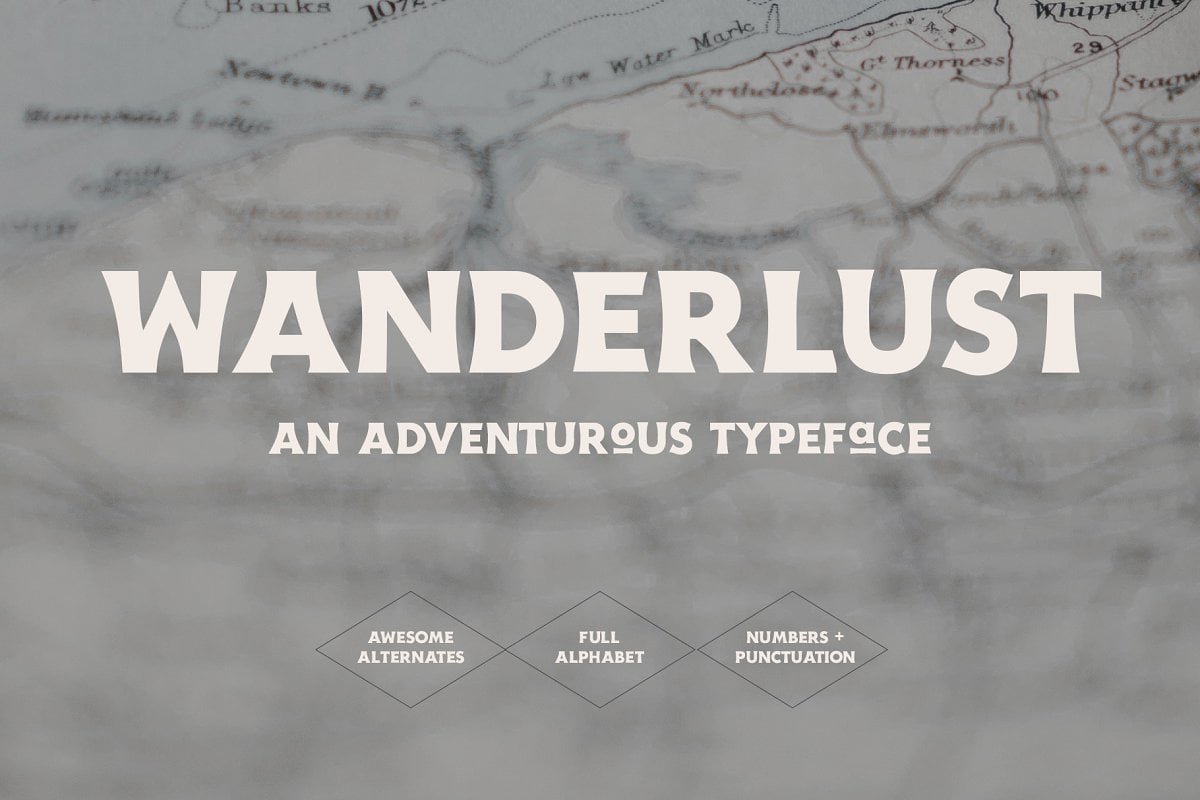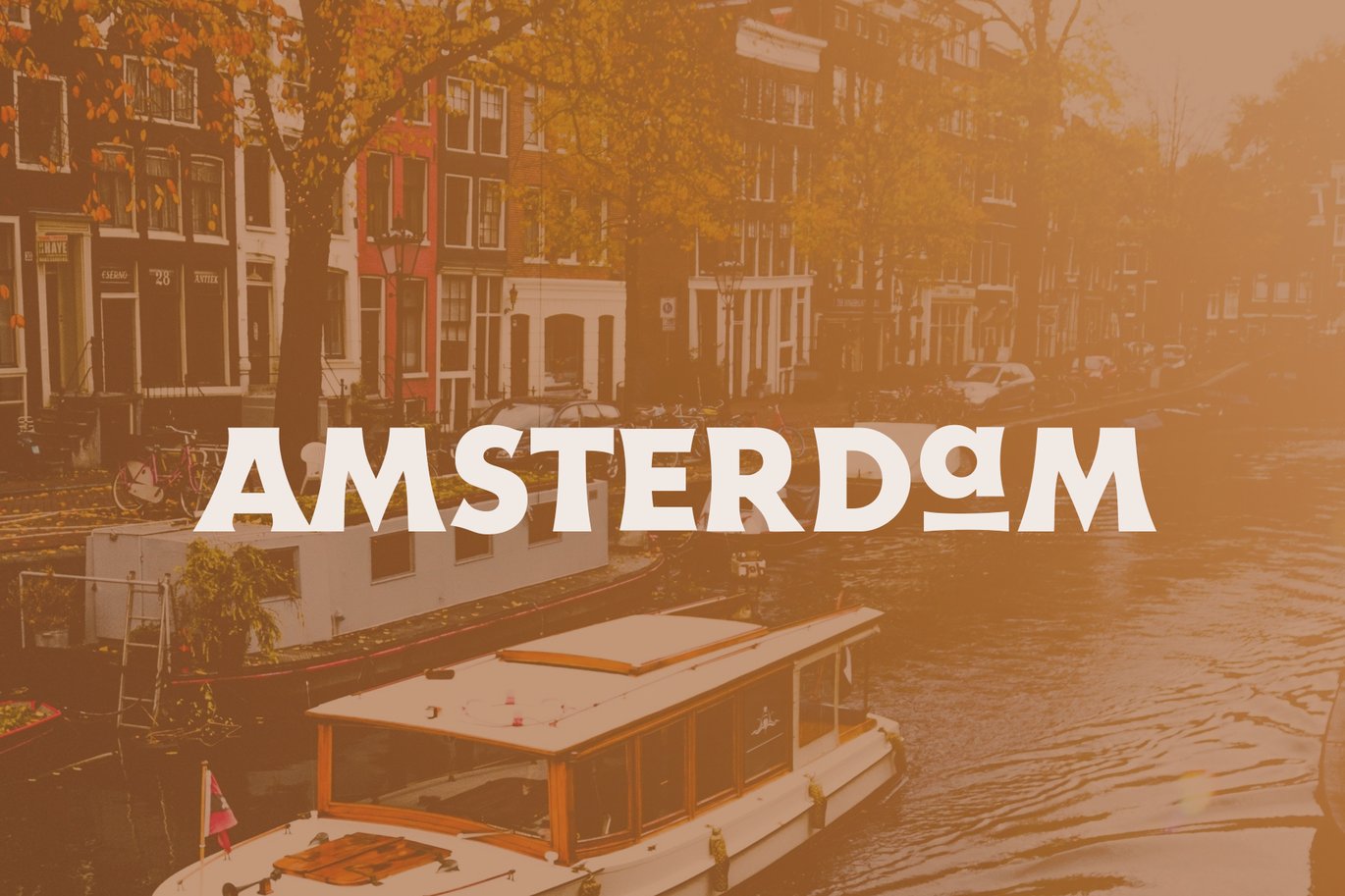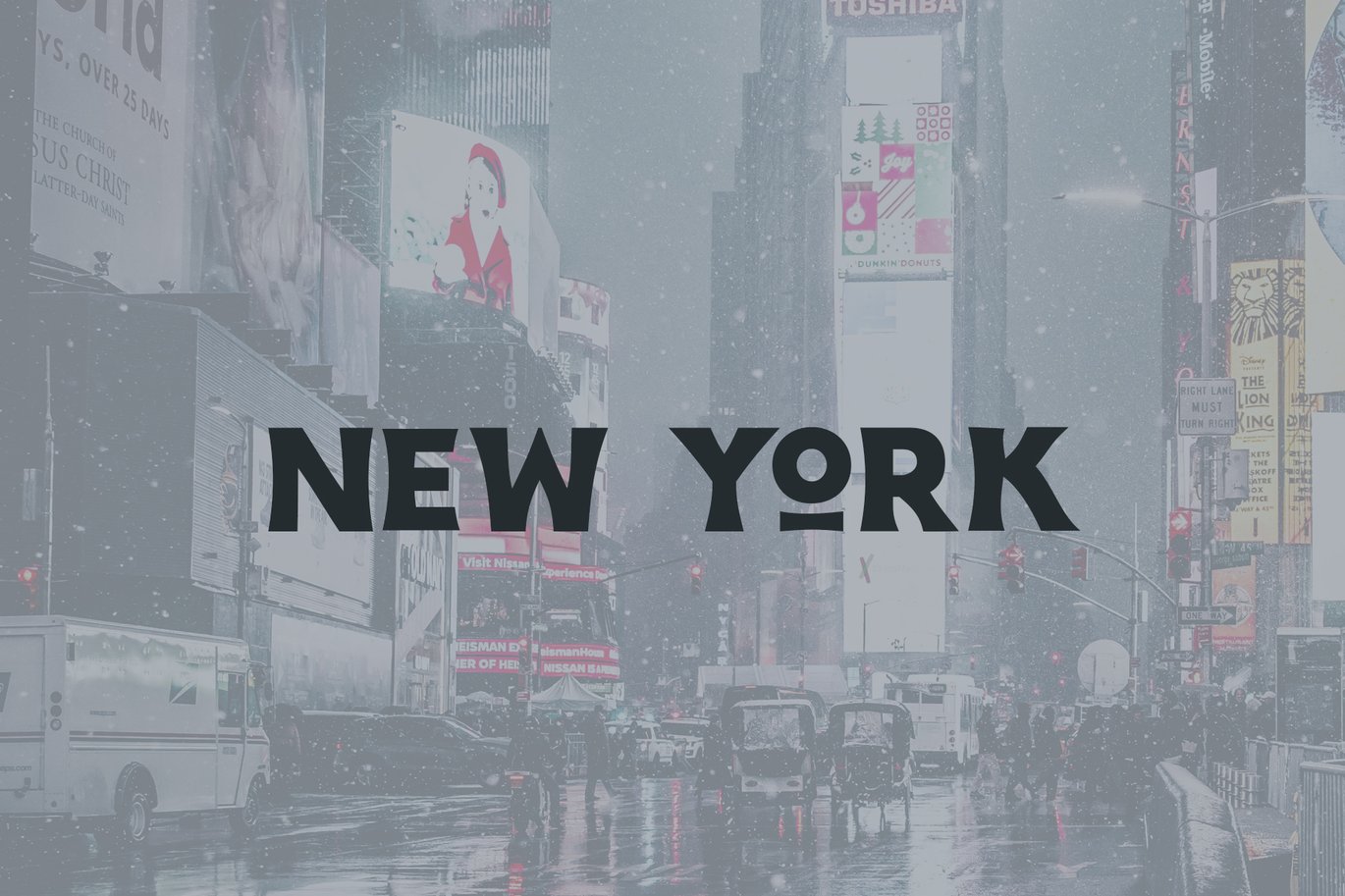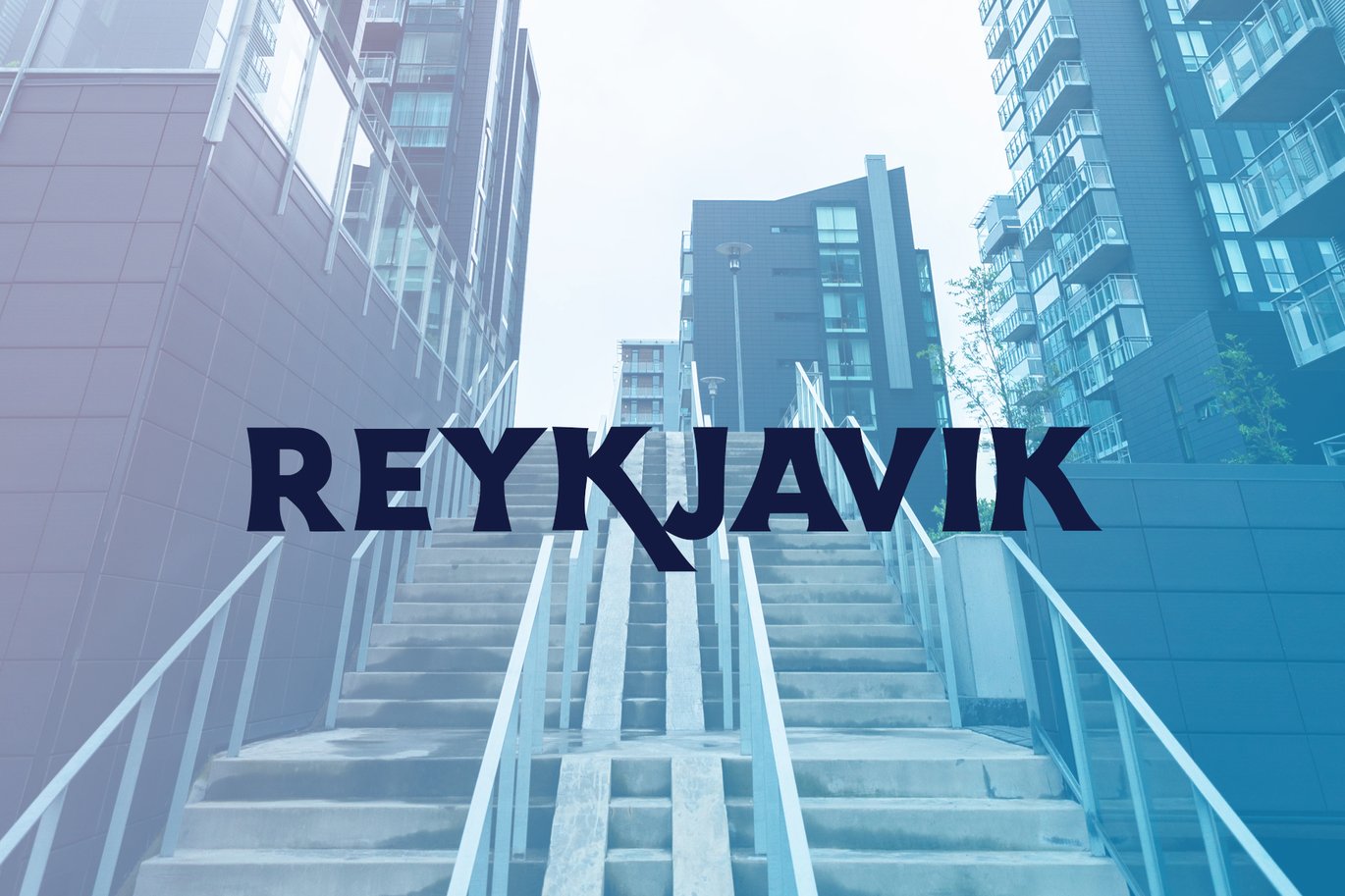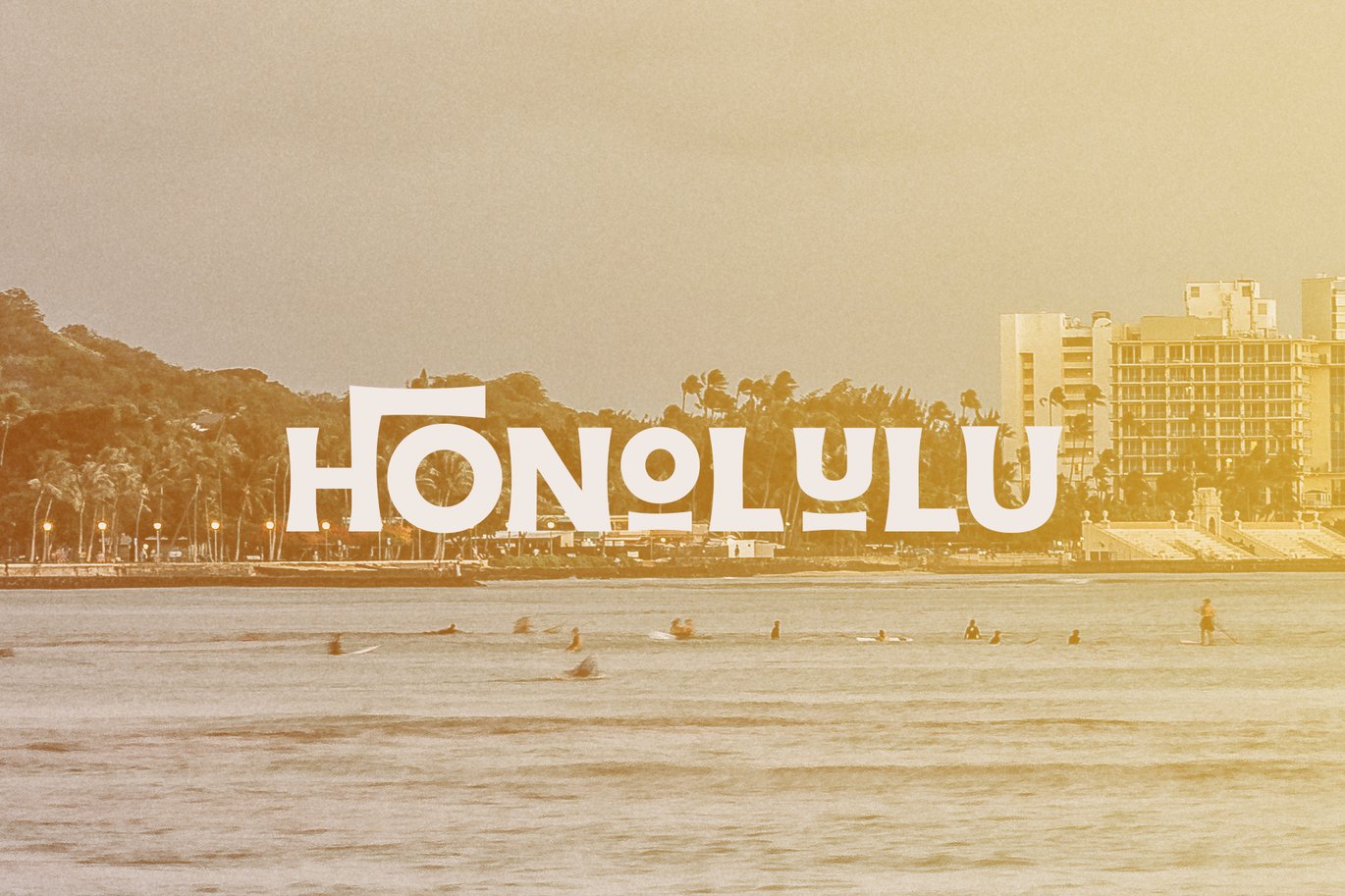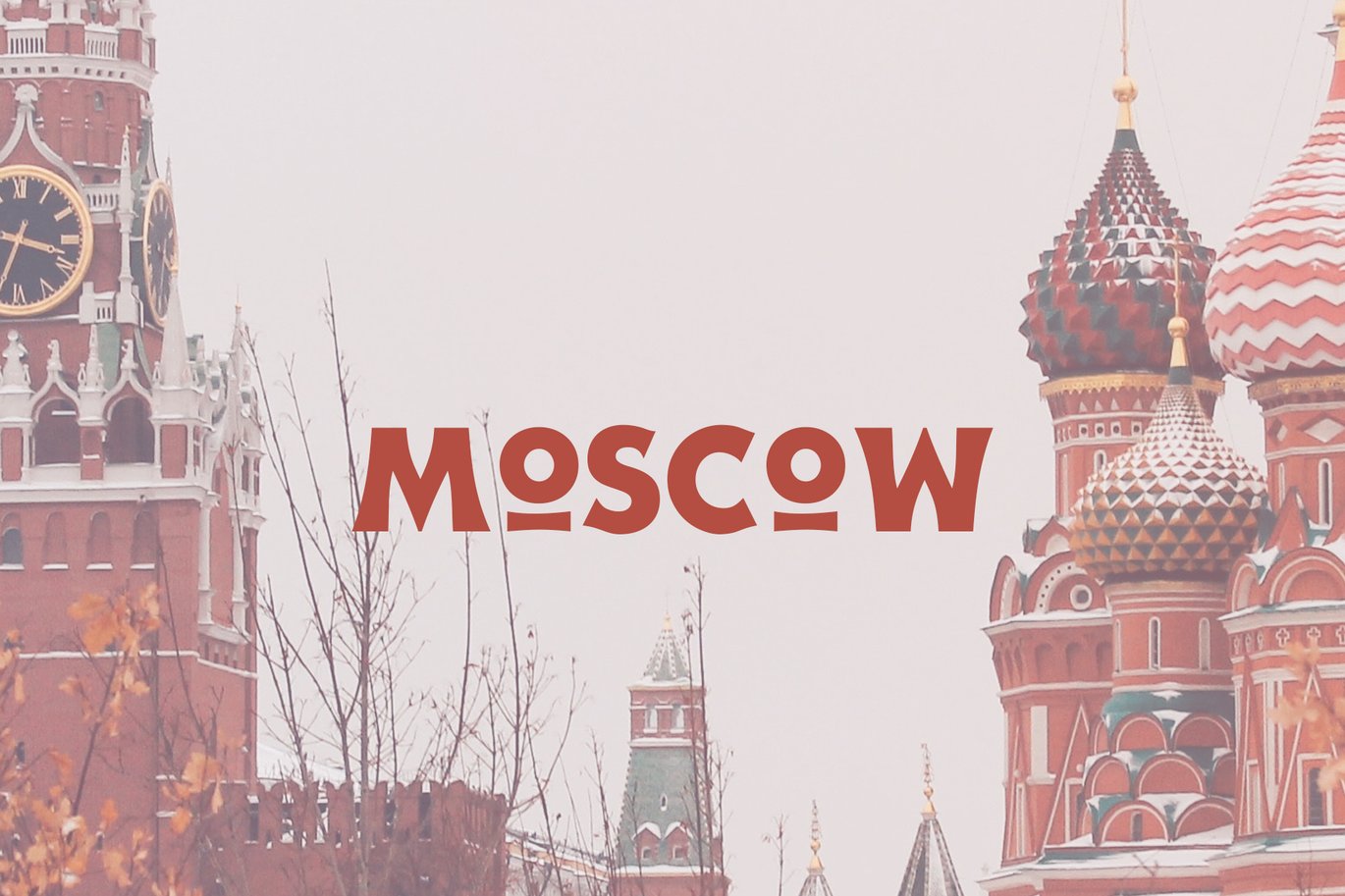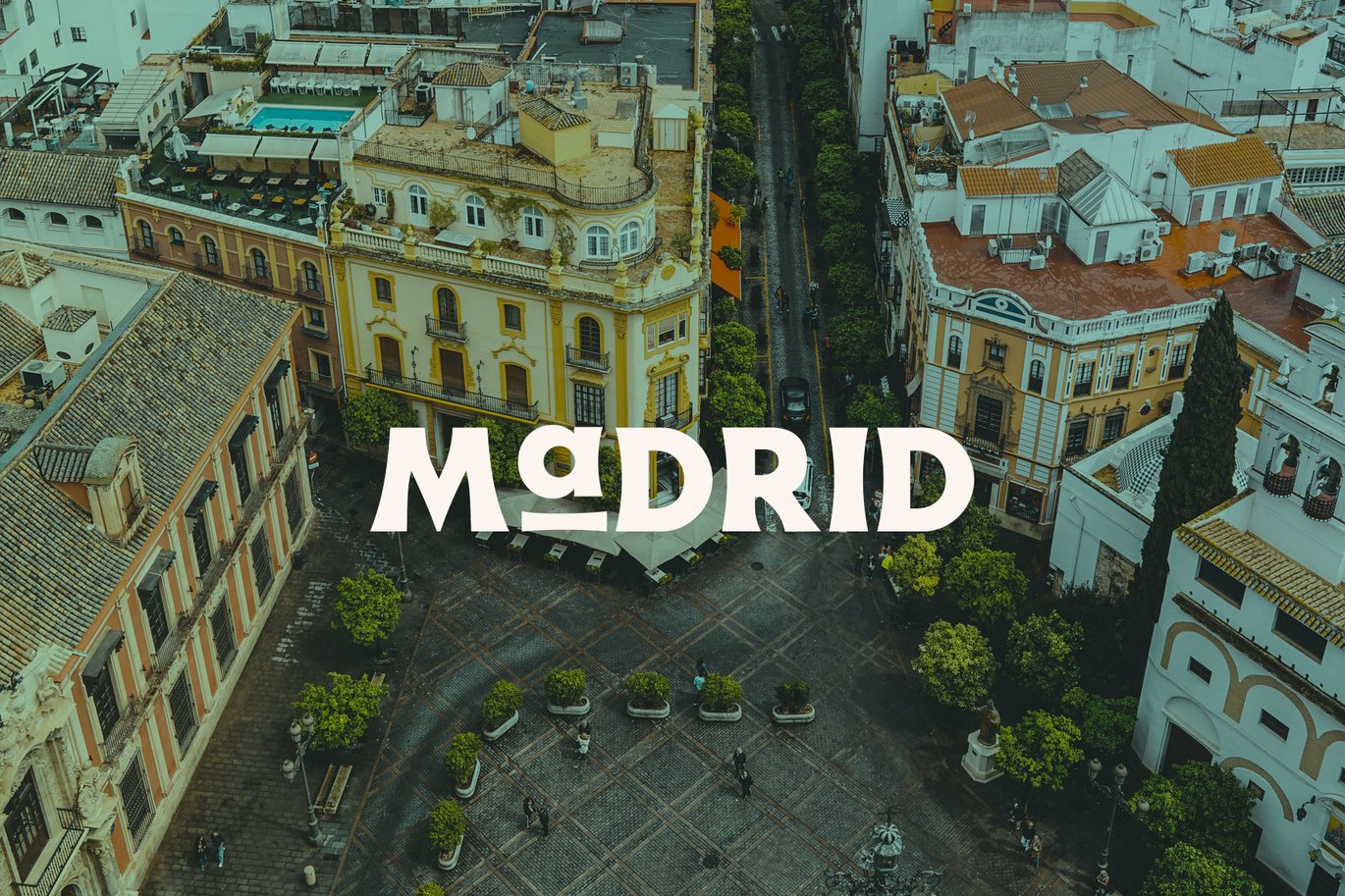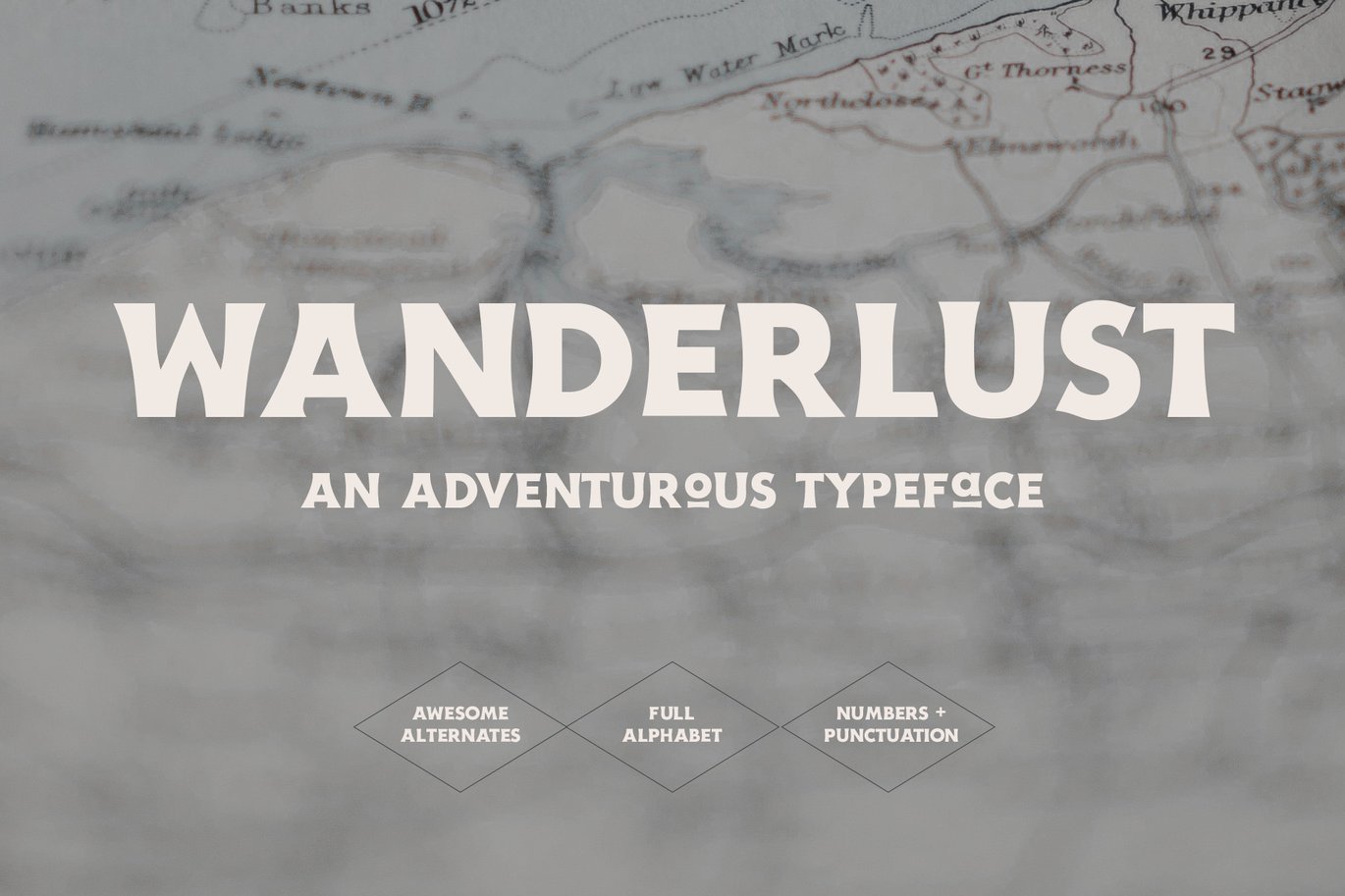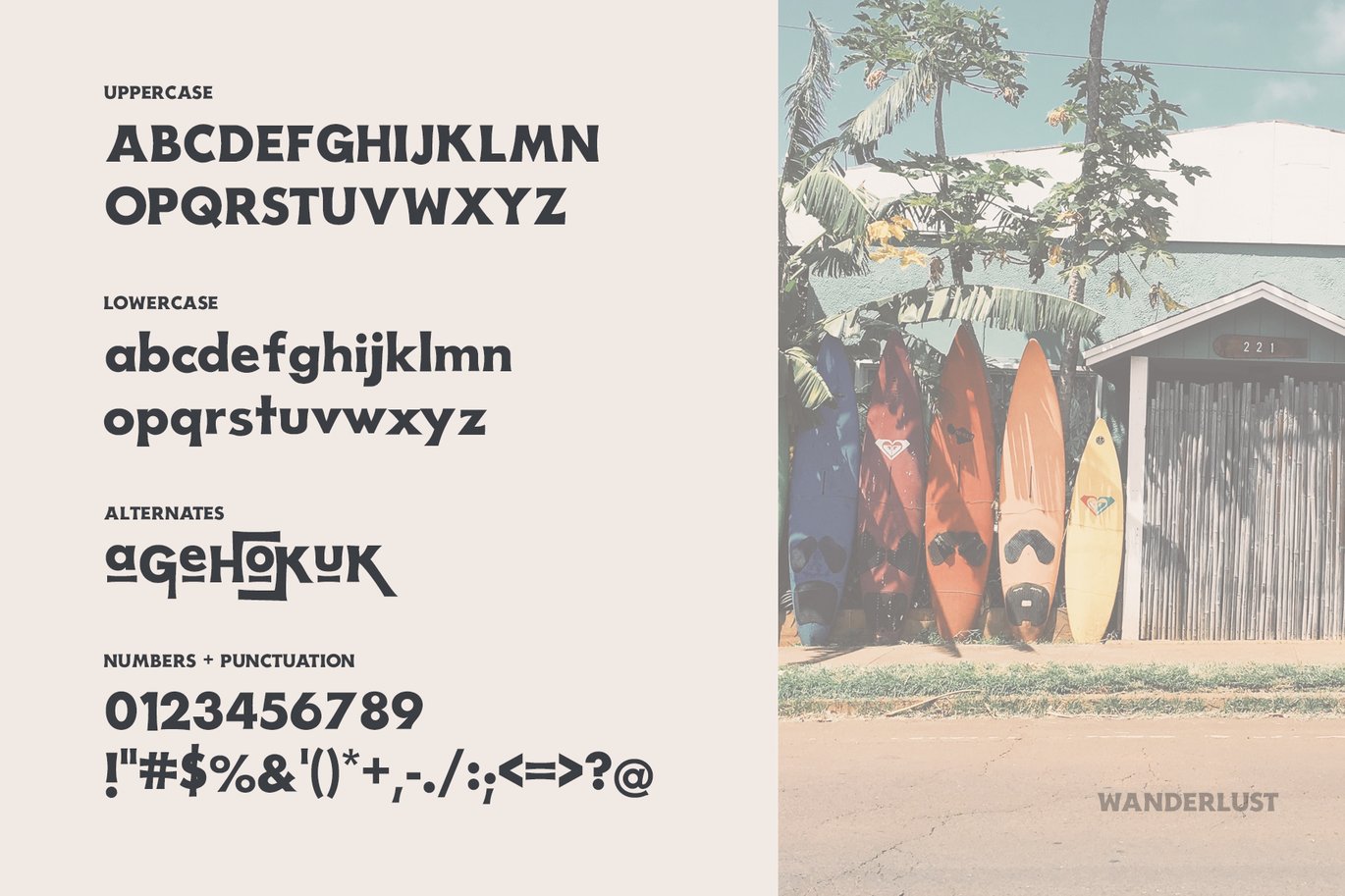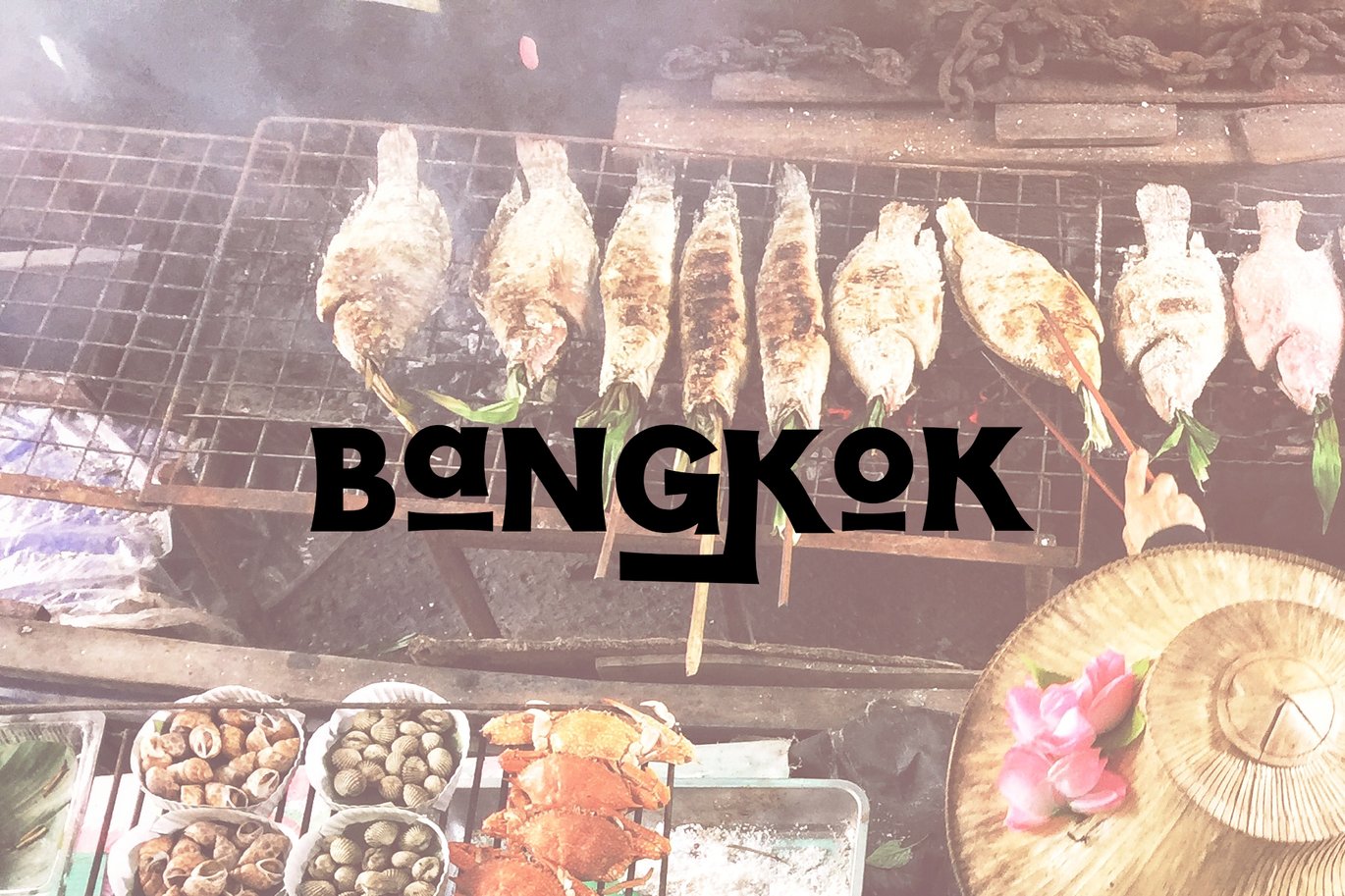
Wanderlust – Travel Font
Say hello to Wanderlust, a beautiful typeface full of spirit, adventure, and awesome alternates! Great for headlines, logos, and standing out in the crowd!